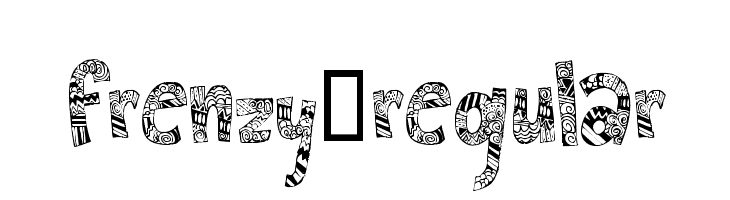
A playful and decorative font with intricate patterns and bold designs.
A tall, narrow, and modern font with clean lines and rounded edges.
A bold, expanded font with geometric and angular characters, perfect for impactful headlines.
A bold, italicized font with a futuristic, angular design.
A bold, heavy font with strong, clean lines and excellent legibility.
A playful, casual handwritten font with rounded, consistent strokes.
A bold, modern sans-serif font with thick, uniform strokes and clean lines.
A futuristic, geometric font with angular and linear strokes.